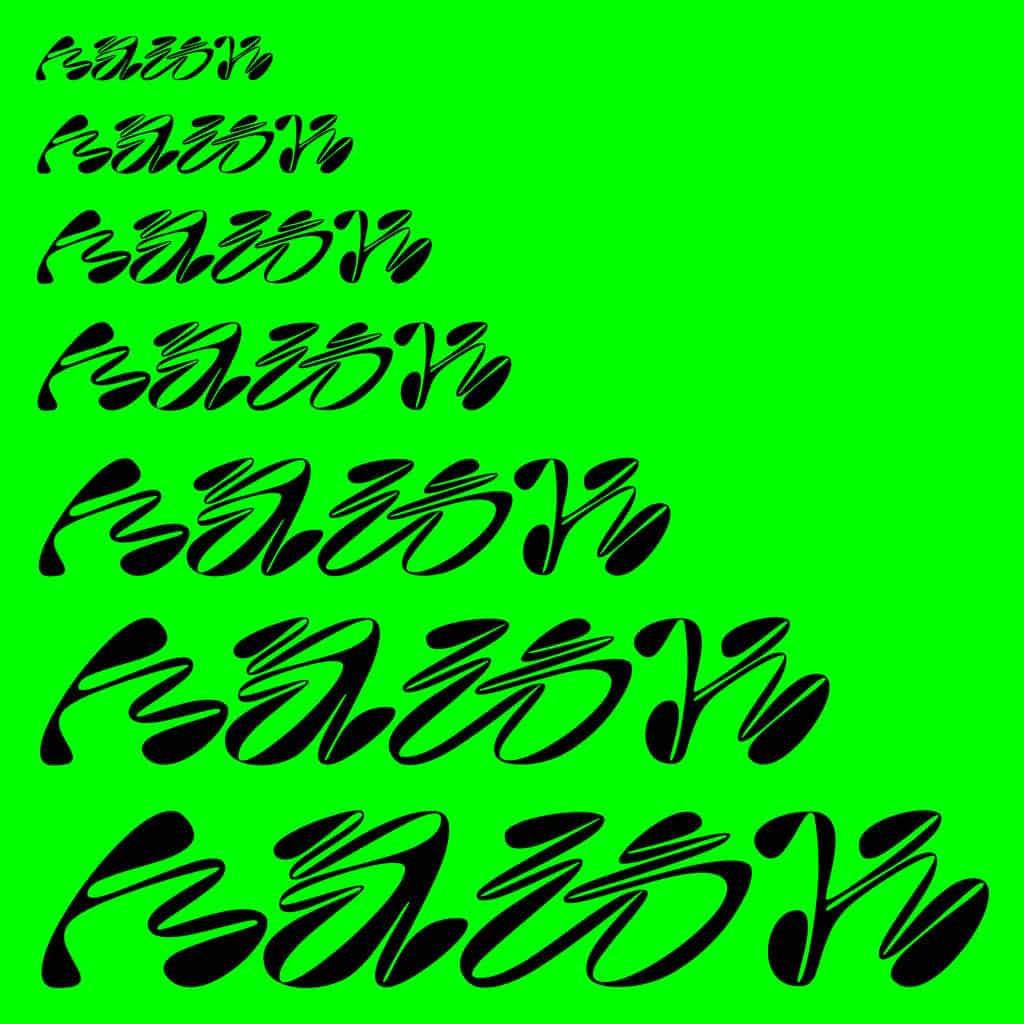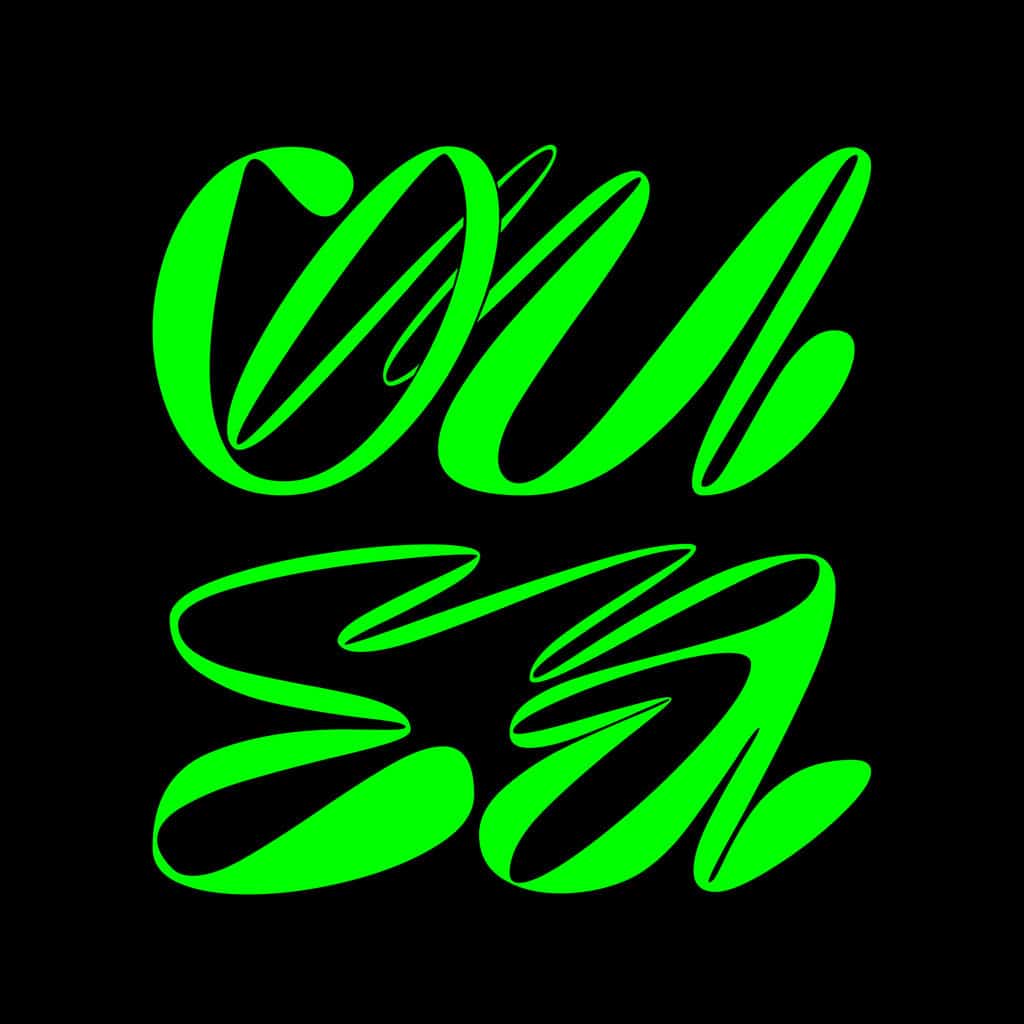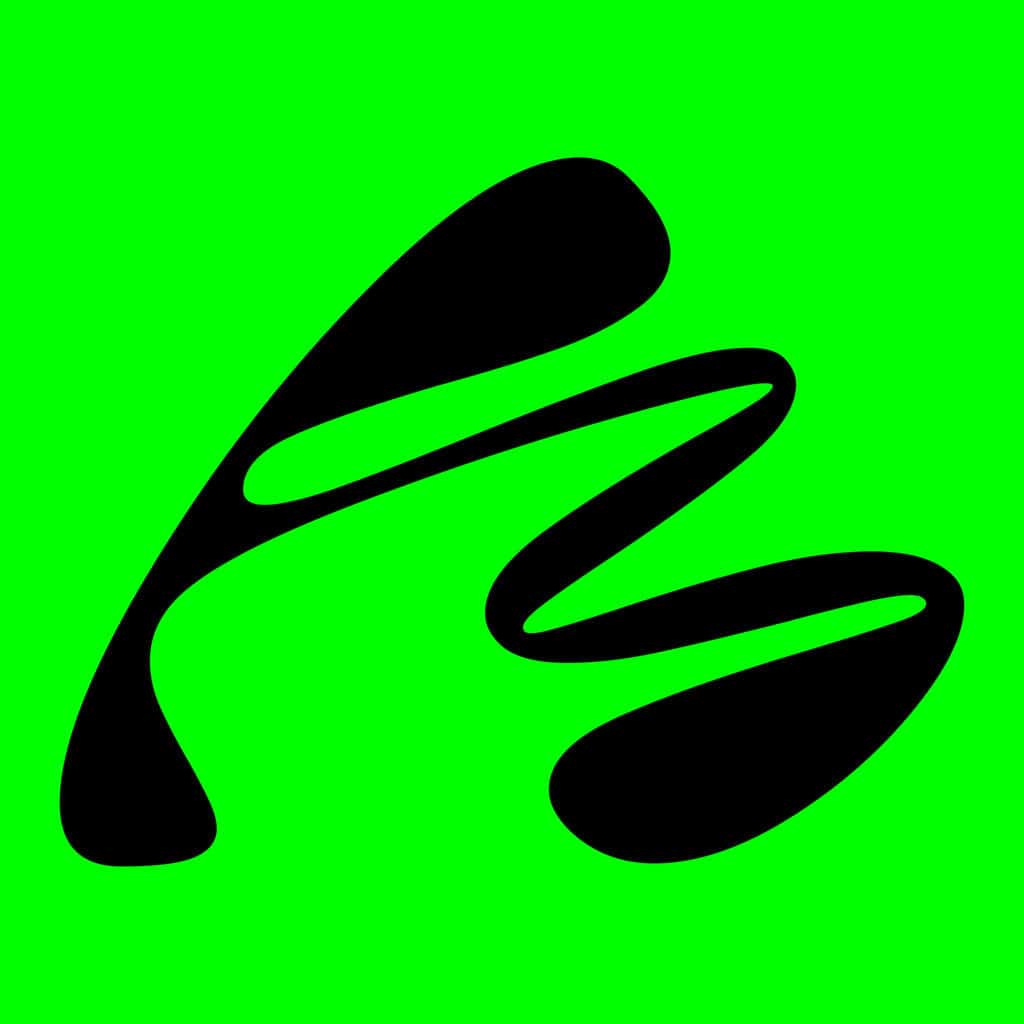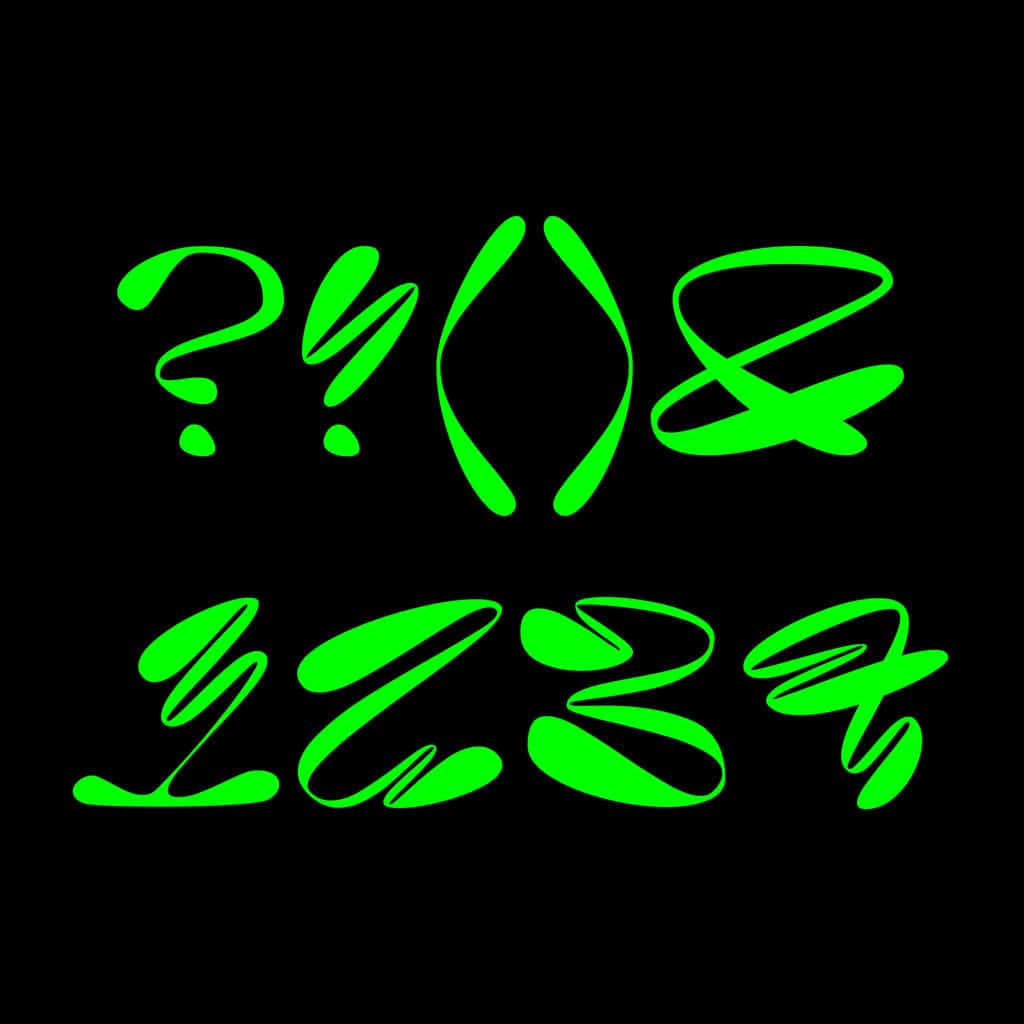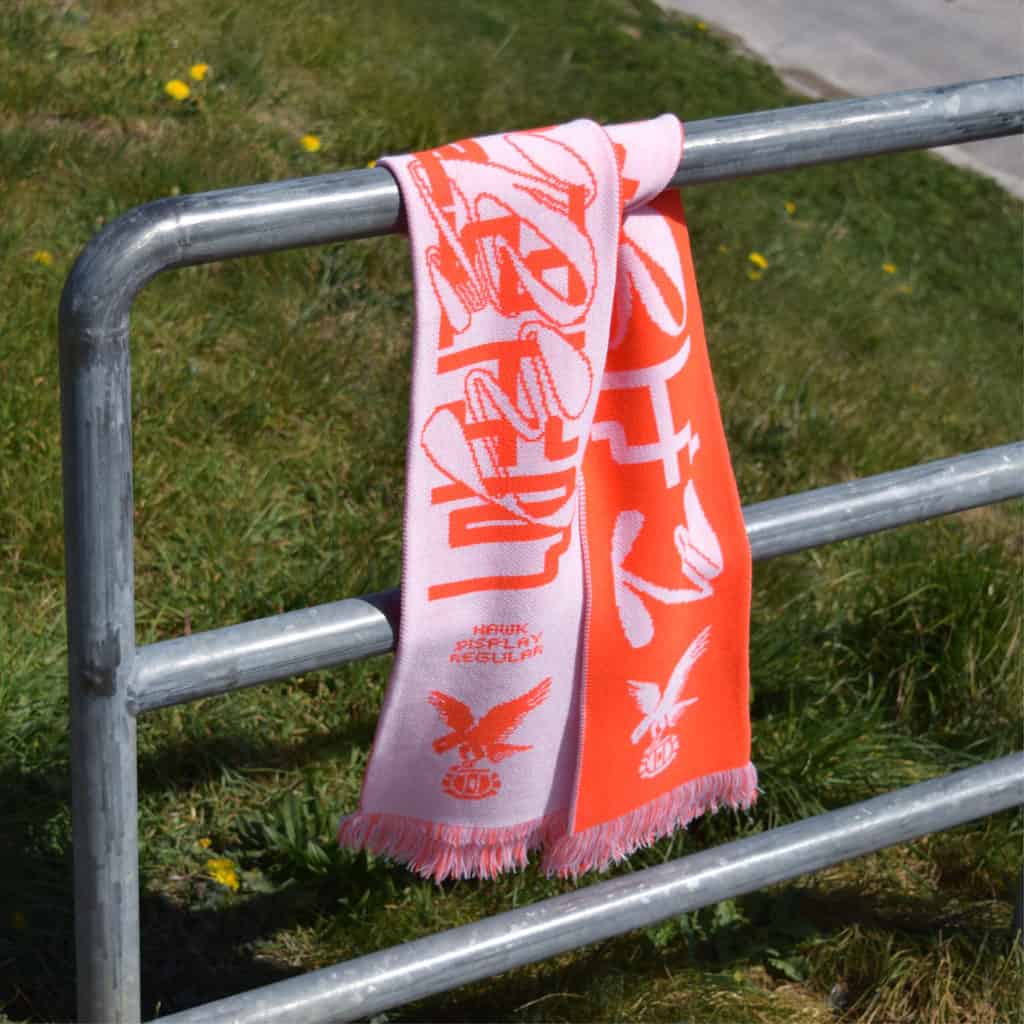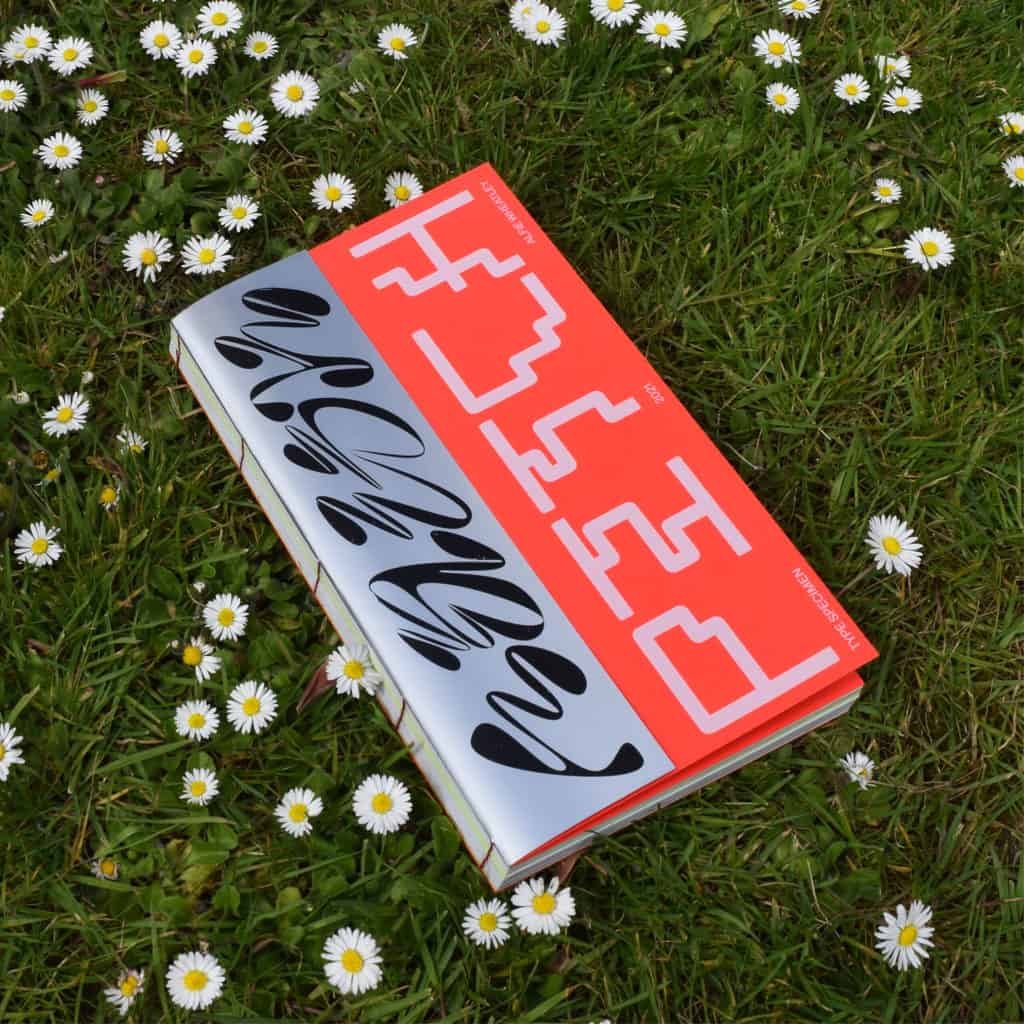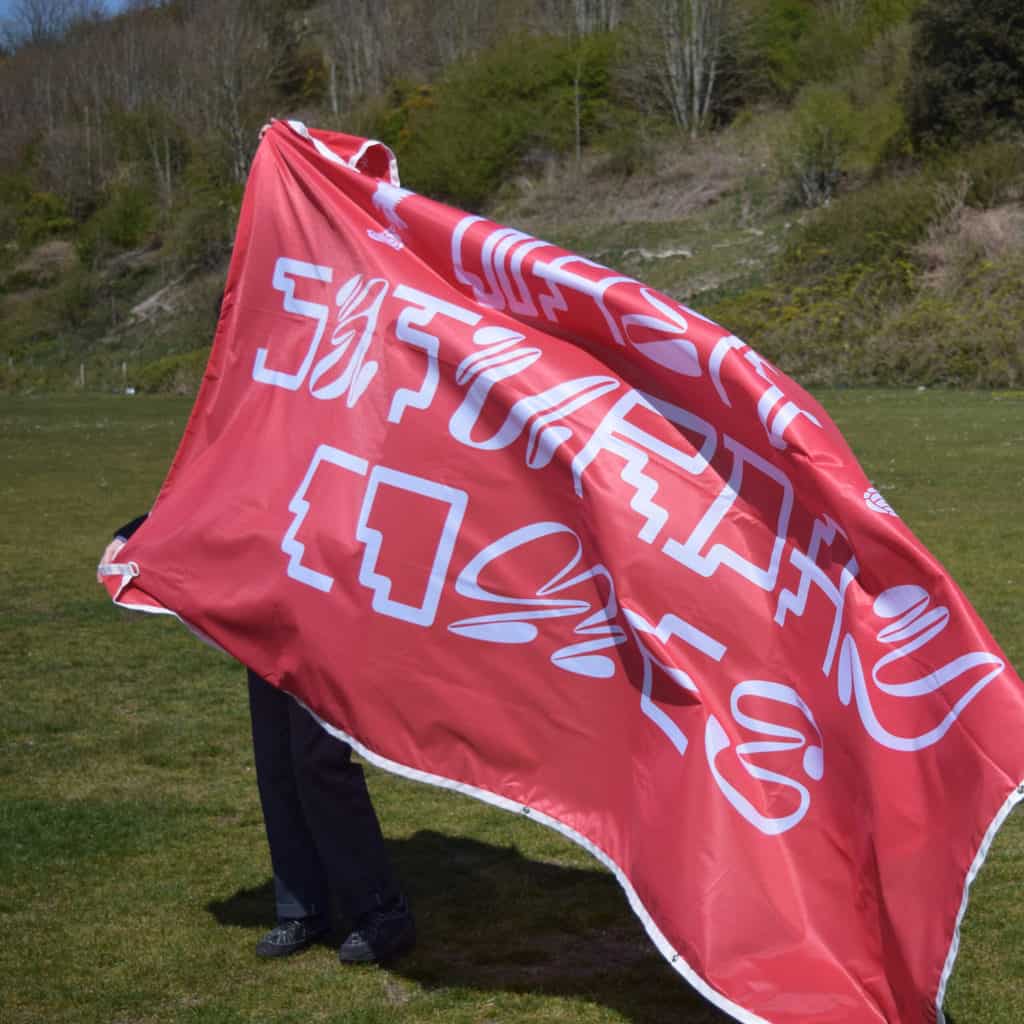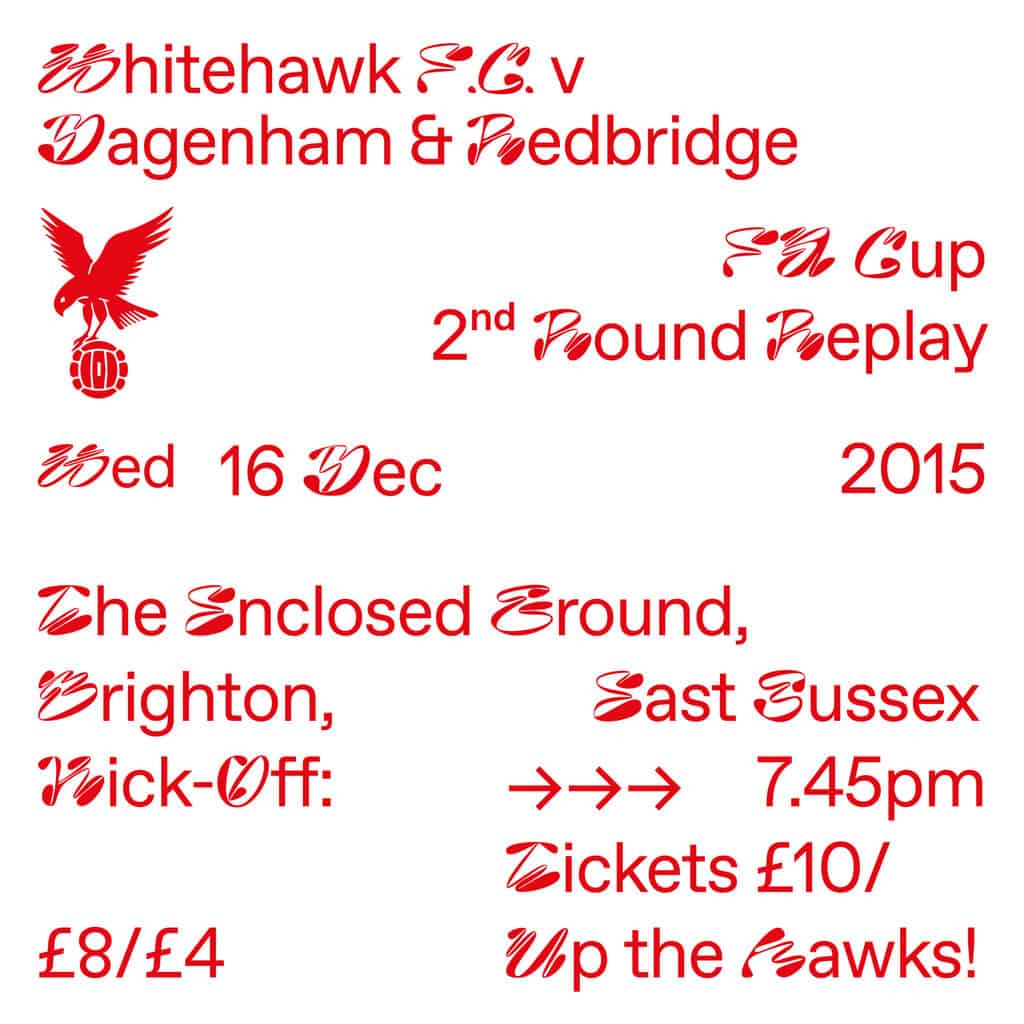
Hawk
Hawk emerges from a deep dive into the vibrant subcultures of rave and football hooliganism, encapsulating the essence of rhythm, dance, and kinetic energy. Born as a final year project in Graphic Design, Hawk channels the exhilaration and freedom of weekends spent at raves and football matches, where emotions run high and spirits soar.
This display font is a visual expression of movement and ecstasy, drawing influences from abstract sculpture and the dynamic environments of subcultural gatherings. Its bold letterforms and distinctive symbols capture the essence of these experiences, making Hawk an ideal choice for designs that demand impact and character.